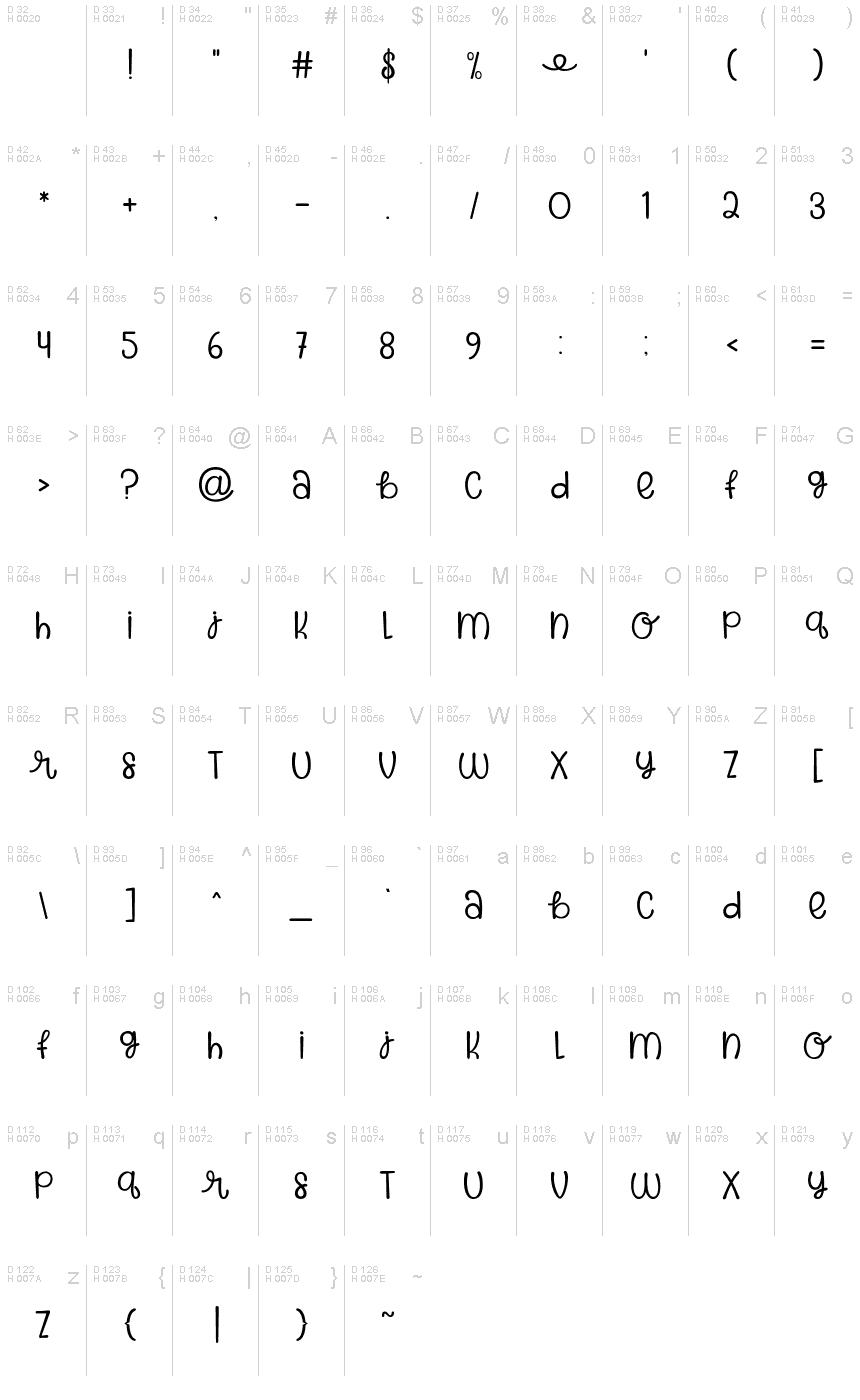
operafont Regular
Introducing operafont by Mustakim, a light, handwritten font perfect for adding a personal touch to your projects. From logos and branding to stationery and invitations, operafont is the perfect choice for creating unique designs.